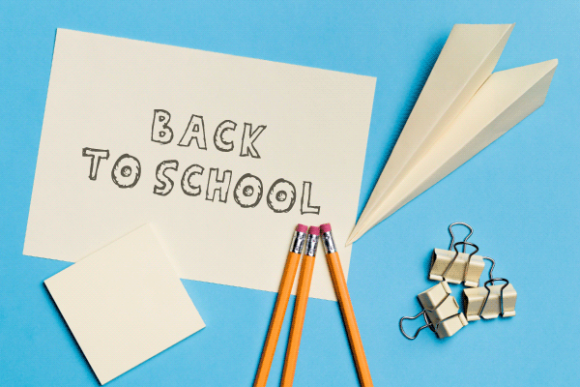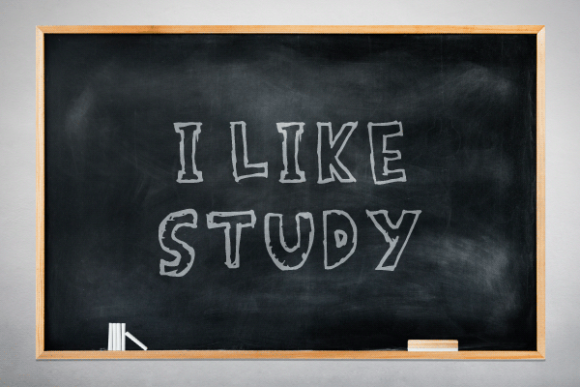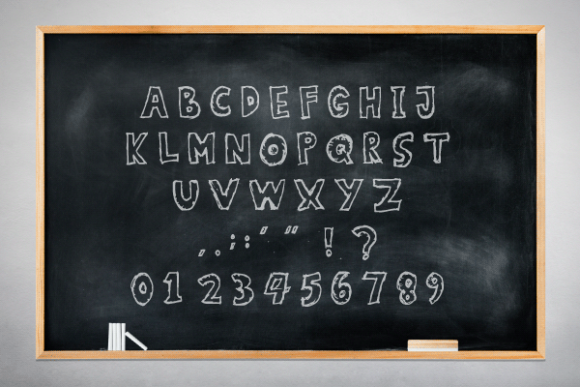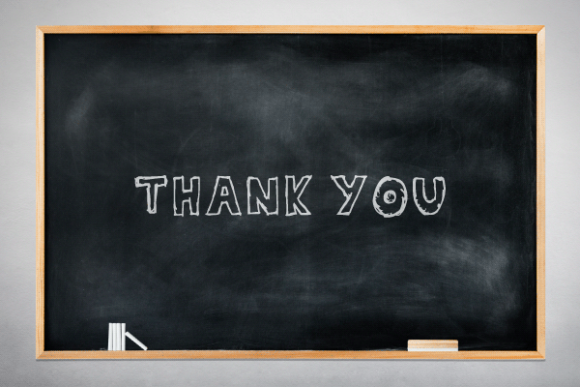
Introduction to Duds Font
Do you remember that moment when a blank piece of paper stared back at you, begging for creativity to flow? For designers, that moment is a familiar one – a blank slate waiting to be filled with imagination and style. If you’re anything like me, you’re always on the lookout for the perfect design resource to elevate your creative project. That’s where Duds Font comes in – a high-quality, cute outlined display font that’s sure to bring a smile to your face.
What sets Duds Font apart from other design fonts is its original look and feel. Perfect for letterheads, titles, and stationery, this font is a versatile design resource that’s sure to appeal to a wide range of crafty ideas. And the best part? It’s available for free download, complete with a transparent background for seamless integration into your design.
As a valuable addition to any designer’s toolkit, Duds Font offers a unique and playful touch that’s sure to elevate your next creative project. Whether you’re working on a personal or professional project, this font is a must-have design resource that’s waiting to be discovered.
Duds Font
- Unique characteristics include a distressed, vintage aesthetic and a wide range of expressive characters
- Perfect for designers, artists, and creatives looking for a high-quality, unique font for their next project
Honest Review: Duds Font
I recently stumbled upon the Duds Font and decided to give it a try. As a designer, I’m always on the lookout for high-quality design resources to elevate my creative projects.
- ✨ High-quality design: The Duds Font is well-crafted and visually appealing, making it perfect for a wide range of design projects.
- ✨ Transparent background: The transparent background option allows for seamless integration with various design elements.
- ⚠️ Limited font styles: While the Duds Font is well-designed, it’s a relatively simple font with limited styles, which may not be suitable for more complex design projects.
- ⚠️ Not ideal for large text: Due to its simple design, the Duds Font may not be the best choice for large text sizes, as it can become difficult to read.
Overall, I’m impressed with the Duds Font’s design quality and free availability. While it may have some limitations, it’s a solid addition to any designer’s toolkit, especially for smaller-scale creative projects.
Tips for Getting the Most Out of Duds Font
One of the best features of the Duds Font is its transparent background, which makes it easy to use in designs with complex backgrounds.
The Duds Font is commonly used in graphic design, digital art, and creative writing projects. It is a versatile font that can be used for a variety of purposes, including headings, titles, and body text.